Fused initials mark
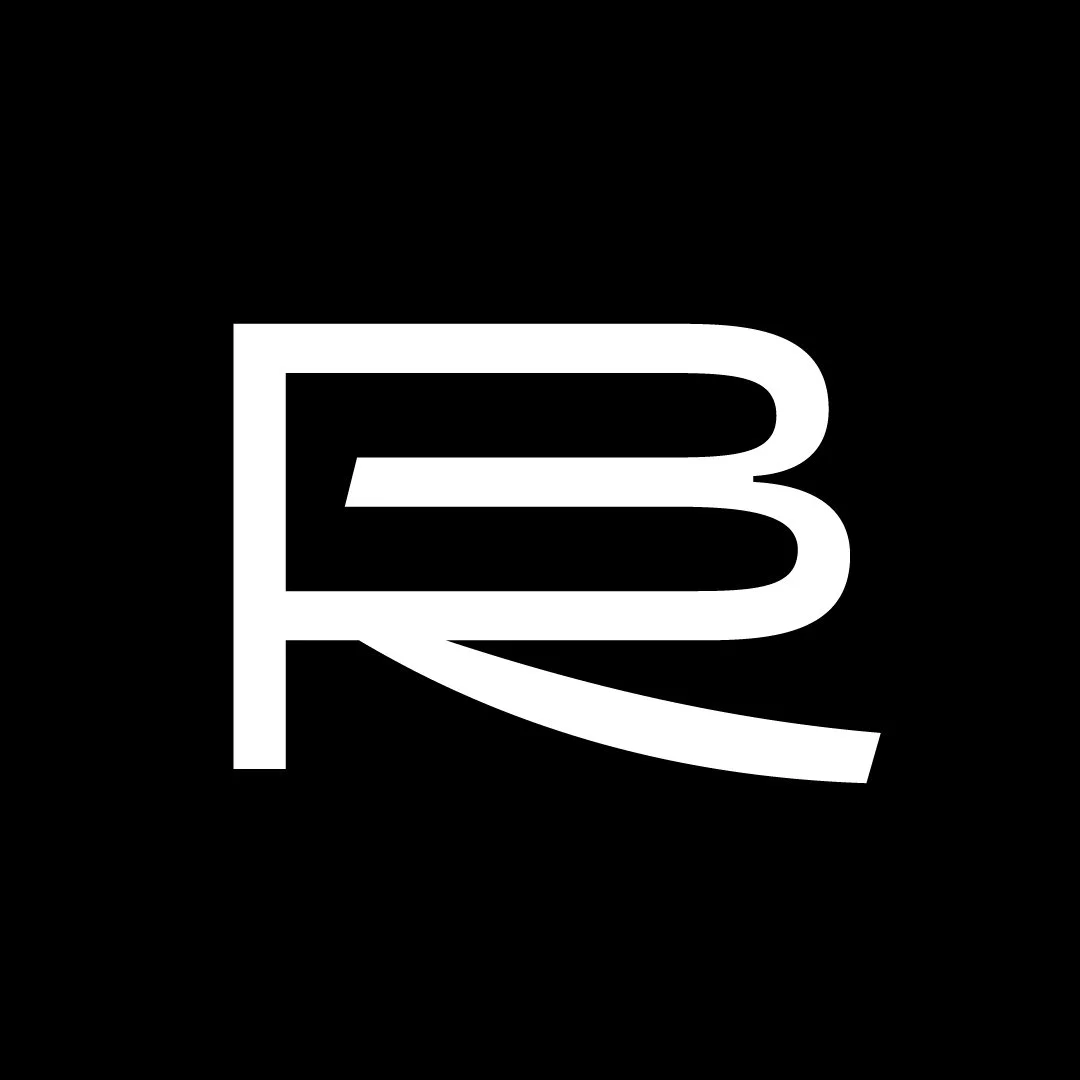
Fused initials mark
A letter-based mark consisting of a ligature of the letters “R” and “B”. Can be read RB and BR. Could fit businesses in law, accounting, banking, finance, insurance, etc.